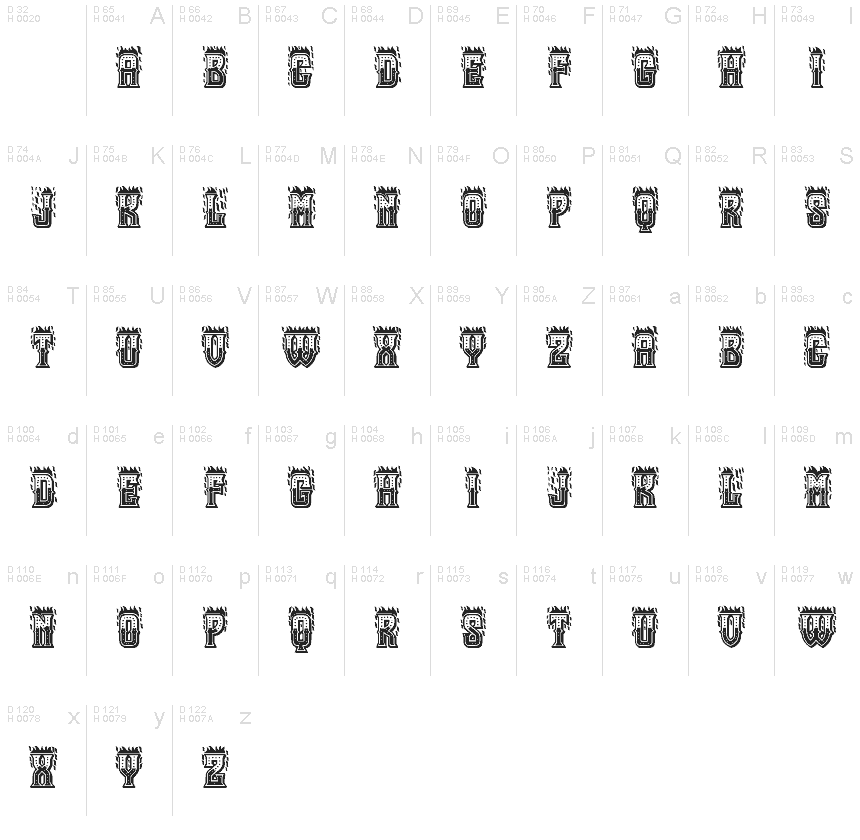
Firing Regular
Firing font by Vladimir Nikolic is a free decorative display font inspired by the dramatic aesthetic of fire and flames. The condensed font embodies extravagance with ornate lines, a light handcrafted touch, and patterned details. Its condensed width makes it suitable for creating high visual impact in limited spaces. Generally, its style delivers a theatrical effect to typographic designs.
A font as festive as Firing can be superb for developing holiday-related projects. Use it for carnivals, 4th of July events, action-themed movie showcases, parties, campfires brochures and leaflets, book covers with fiery topics or genres like medieval or spy novels among others.